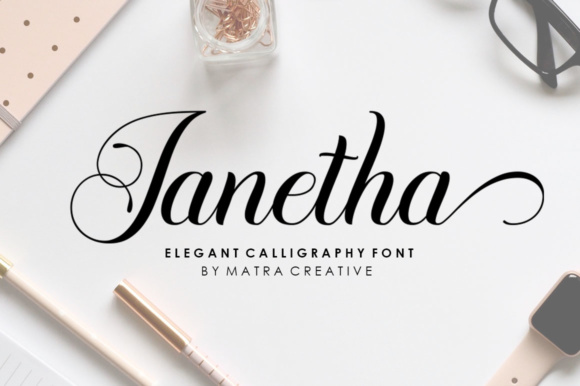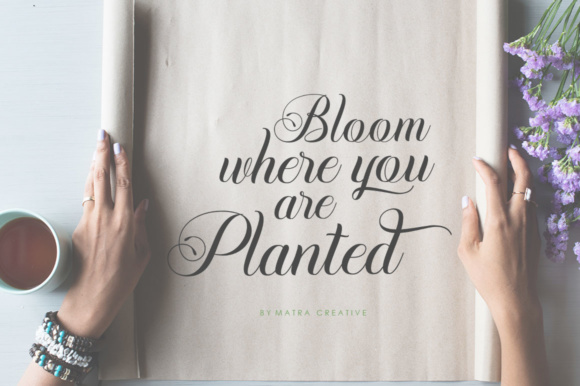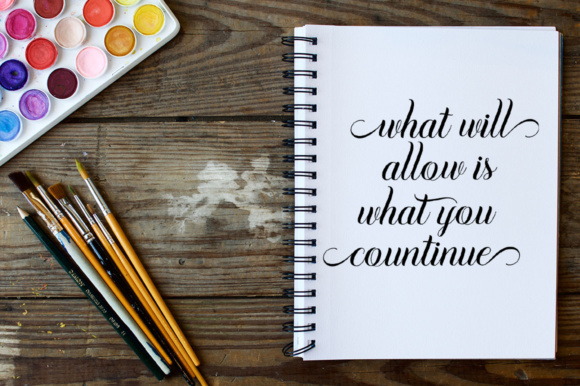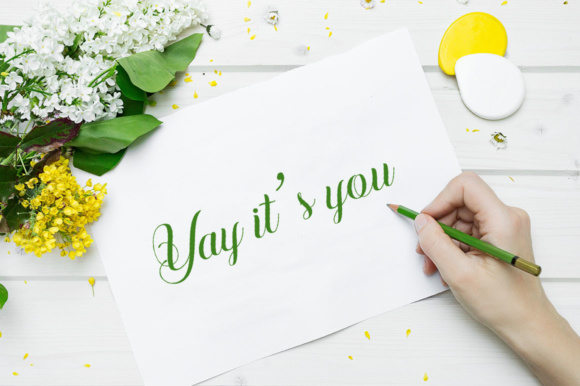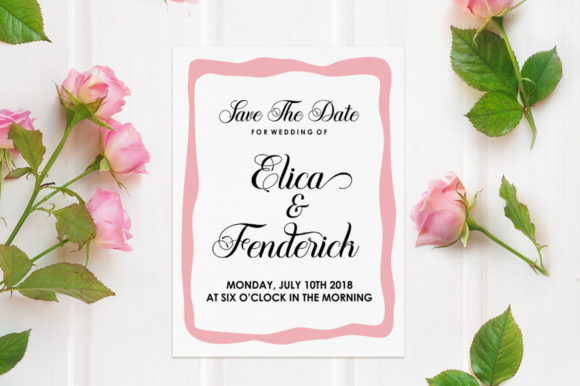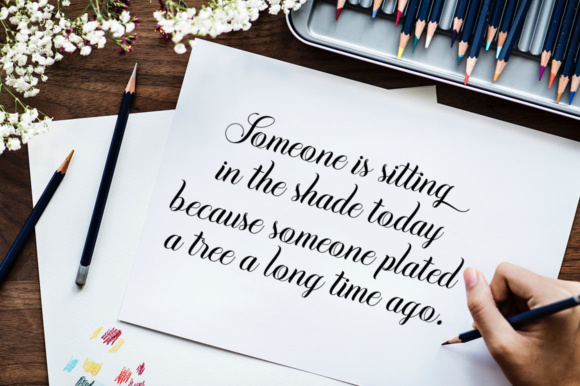
Janetha Font
About Janetha Font
Janetha is a beautiful calligraphy script that will add elegance and style to all your creative work! This gorgeous script is suitable for headlines that need a romantic and classic appeal.